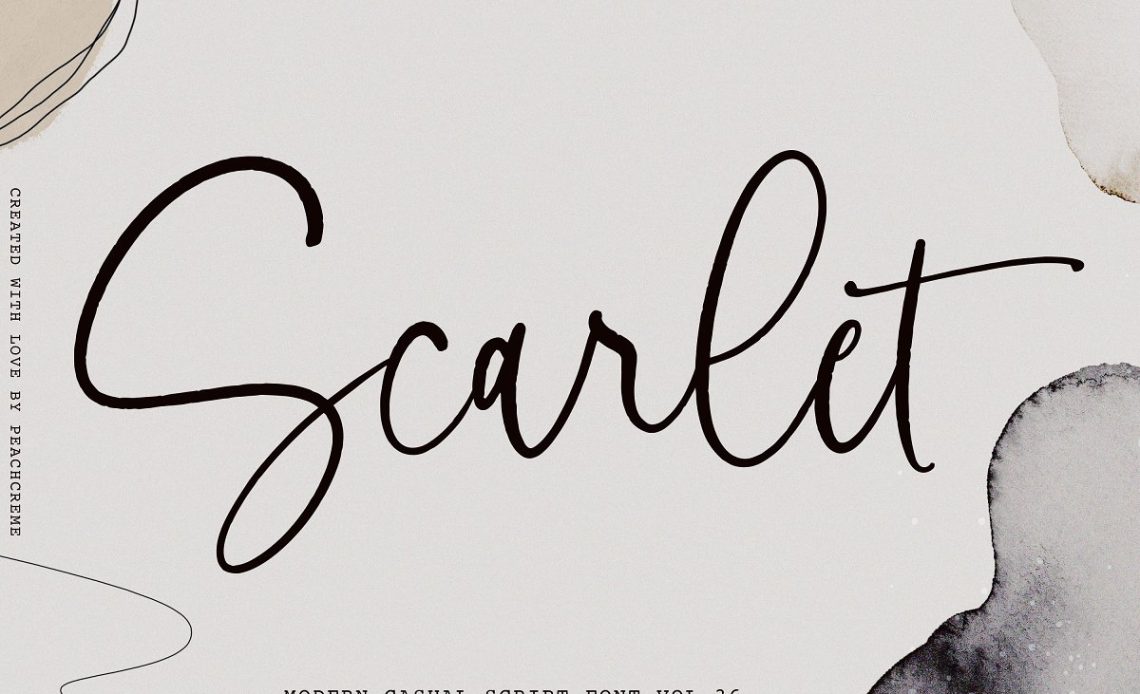
Introducing Scarlet - the perfect font for those looking to add a touch of modern casual flair to their projects. Created by PeachCreme, this cool script font has everything you need to make your work stand out from the crowd.
If you're looking for a font that is both stylish and versatile, then Scarlet is the perfect choice. With a full set of uppercase and lowercase letters, multilingual symbols, numerals, punctuation, and 134 ligatures, you'll have everything you need to create beautiful designs that truly reflect your unique style.
But that's not all - Scarlet also comes with a rough texture that adds a touch of authenticity to your work. And with beginning and ending lowercase letters, your designs will look even more polished and professional.
If you're looking for cool fonts for tattoos script, then Scarlet is a must-have. Its modern and casual feel makes it perfect for any project, whether you're designing a logo, creating a poster, or writing a blog post.